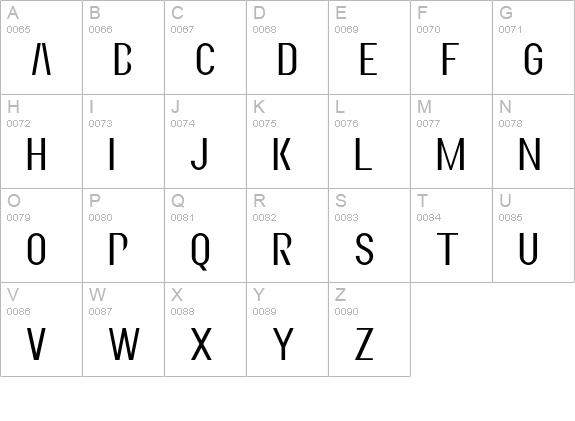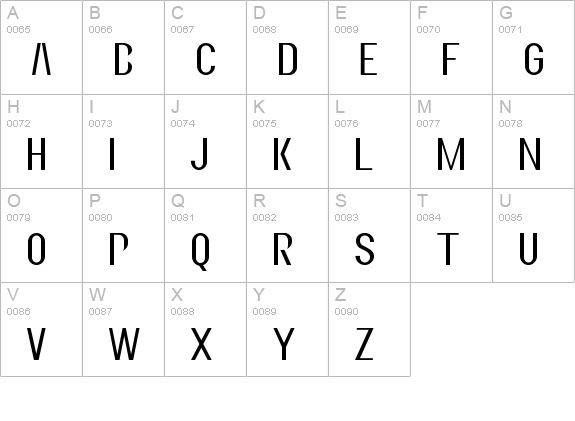
Metropolitan Font Details
Metropolitan font is a modern and elegant typeface that exudes sophistication and style. With its sleek lines and clean design, this font is perfect for a wide range of design projects, from branding to editorial layouts. The versatility of Metropolitan font makes it a go-to choice for designers looking to add a touch of class to their work. What sets Metropolitan font apart is not only its contemporary look but also the fact that it is available for free download at FontsMarket.com. This means that you can elevate your design projects without breaking the bank. Whether you're working on a logo, website, or print material, Metropolitan font is sure to make a lasting impression. Download it today and see for yourself the impact this font can have on your designs.